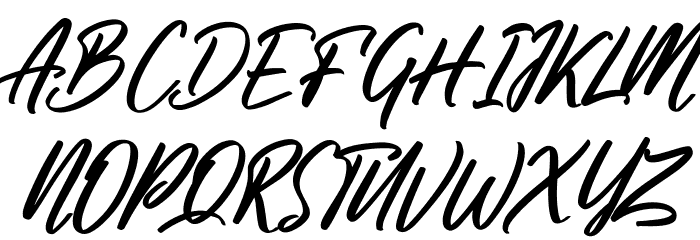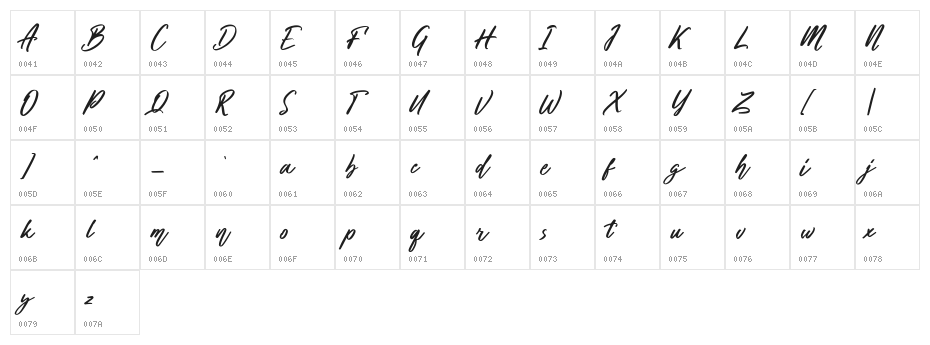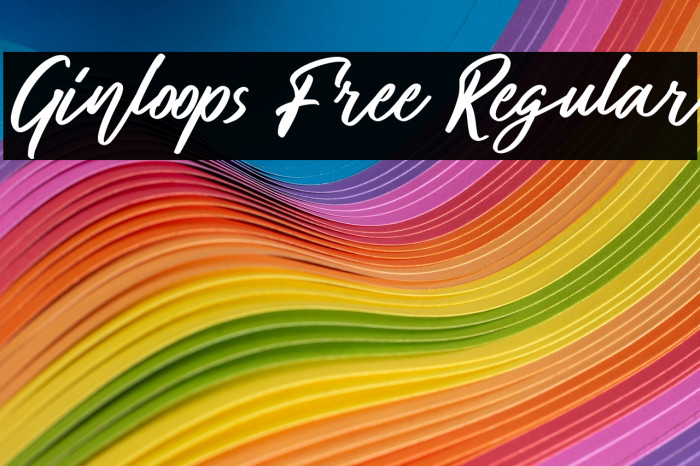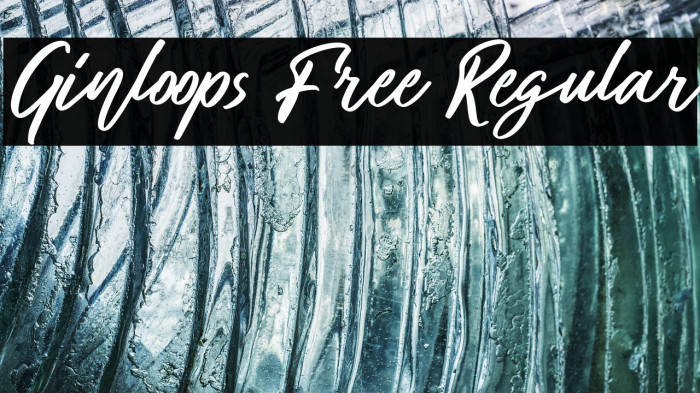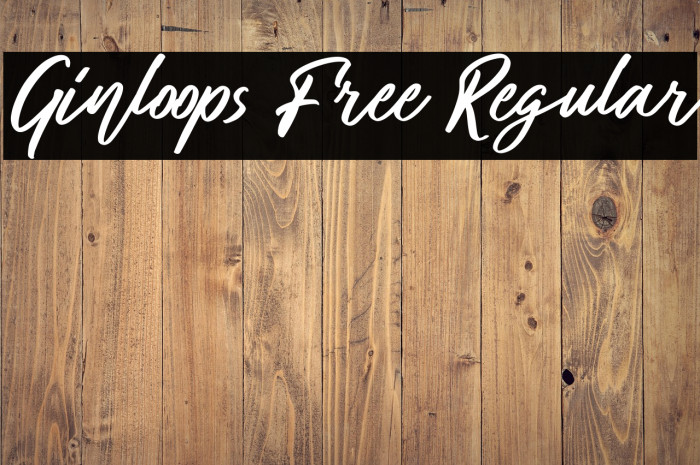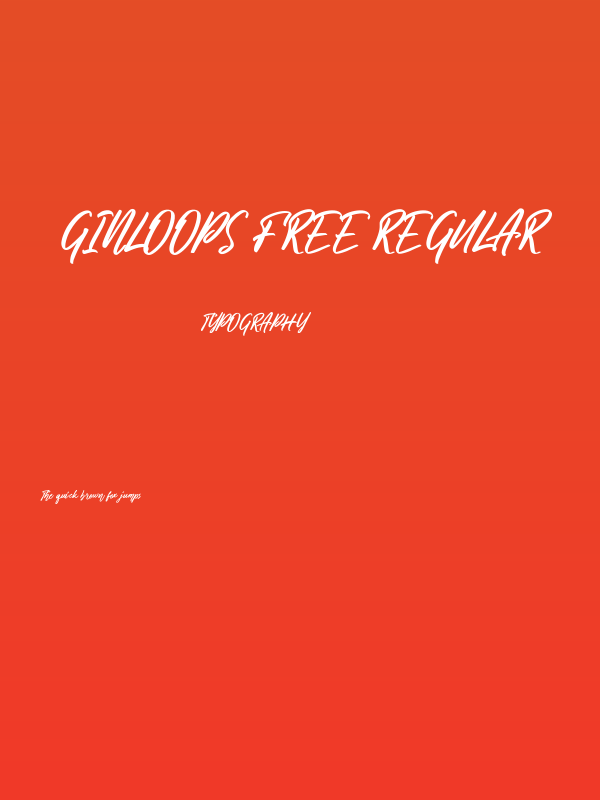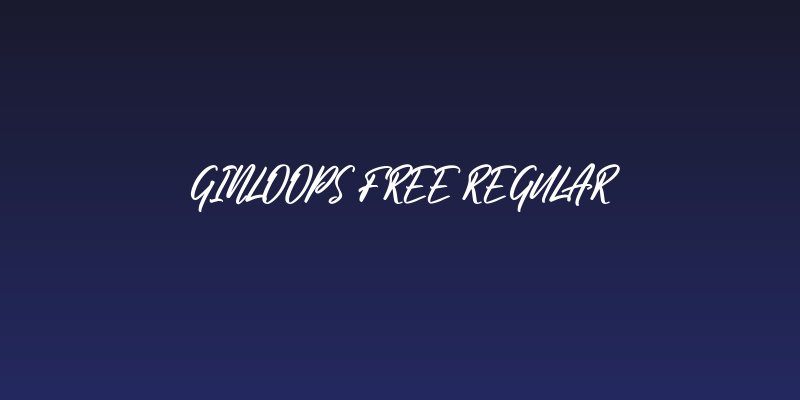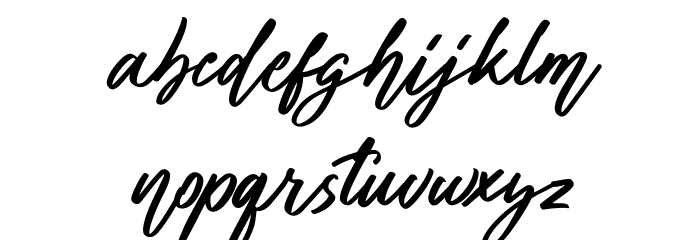
Ginloops Free Regular Font
Ginloops Free Regular Description
This font features a dynamic and flowing script style, characterized by its bold and expressive strokes. The letters are connected in a cursive manner, giving it a handwritten feel that is both elegant and energetic. The uppercase letters are slightly more elaborate, with sweeping curves and loops, while the lowercase letters maintain a consistent rhythm and flow. The overall appearance is lively and artistic, making it suitable for creative and informal applications. The font's design emphasizes fluidity and movement, capturing attention with its stylish and modern aesthetic.